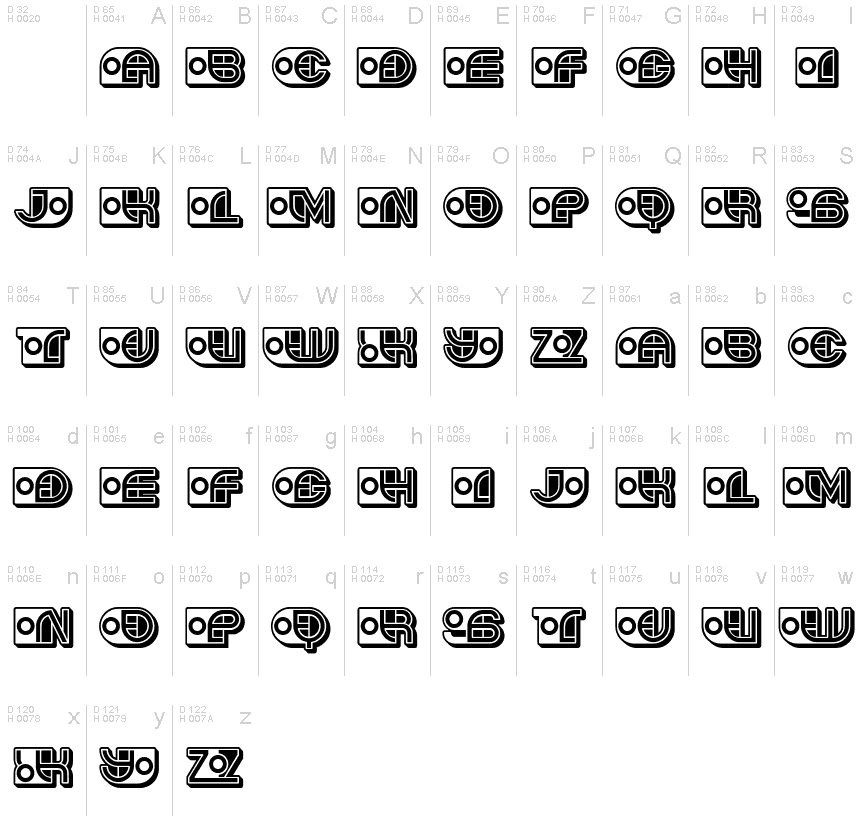
Hypno Light Regular
Hypno Light, designed by Vladimir Nikolic, is an ultra-bold and extra-expanded display font that will mesmerize your audience with its decorative style. This captivating typeface is perfect for creating eye-catching logos, attention-grabbing headlines, and engaging social media graphics. Its bold weight and expanded width make it ideal for projects that demand a strong visual presence, such as posters, advertisements, or album covers. Hypno Light adds a touch of hypnotic allure to any design, making it suitable for fashion campaigns, art exhibitions, or even mystical-themed projects seeking to leave a lasting impression.